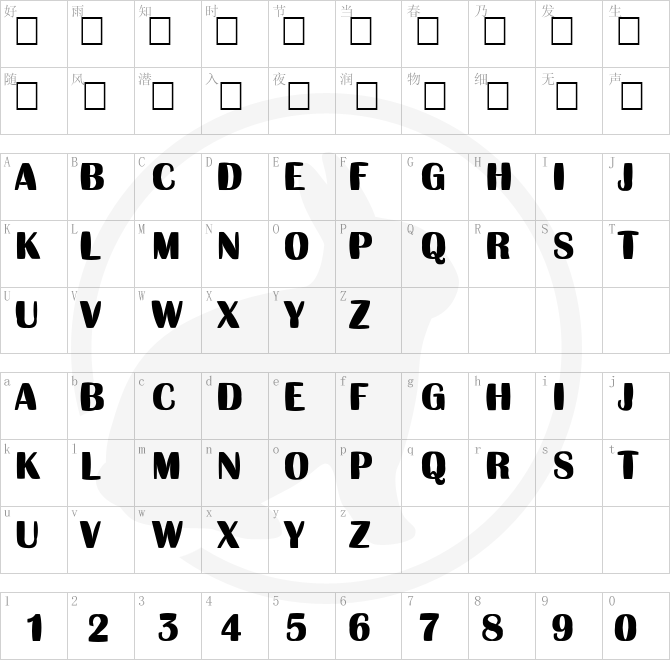
- Font Name:a_AlbionicTitulInfl
- Subfamily:a_AlbionicTitulInfl Bold
- Full Name:a_AlbionicTitulInfl Bold
- PostScript:a_AlbionicTitulInfl-Bold
a_AlbionicTitulInfl-Bold.ttf is a very beautiful artistic font, a_AlbionicTitulInfl-Bold.ttf is widely used in the design and printing of various books and pictures,a_AlbionicTitulInfl-Bold.ttf has a strong visual impact,a_AlbionicTitulInfl-Bold.ttf is a commonly used font in newspapers, magazines and books, and is used in posters, e-commerce Poster design, store design, logo design, font design and other fields.a_AlbionicTitulInfl-Bold.